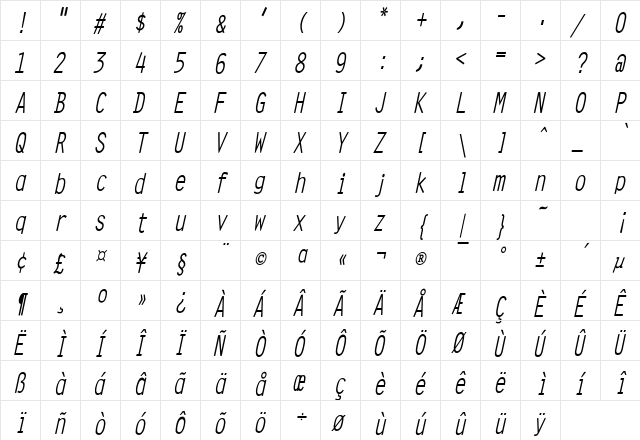
Clean Condensed Italic Font Preview
Design Context for Clean Condensed Typeface
Clean Condensed is a composed and adaptable typeface that performs quietly and consistently across a wide range of design contexts. The slanted form adds forward momentum and visual energy. The condensed width makes it efficient for tight spaces without sacrificing legibility.
Pro Tip: Try Clean Condensed for annotation and caption copy alongside an upright companion — the contrast in angle creates a dynamic but ordered typographic system.